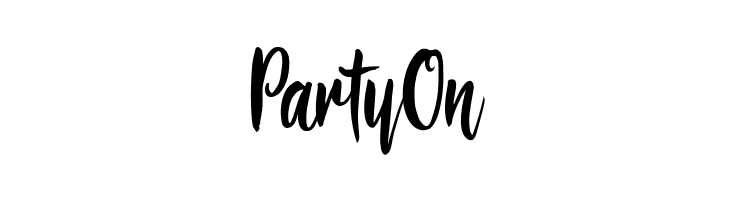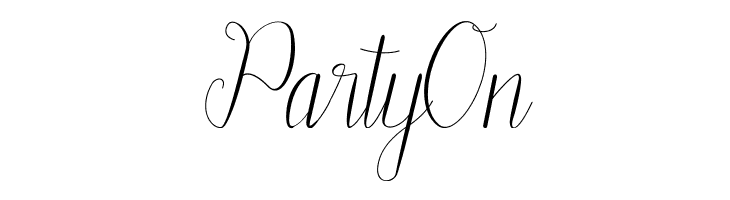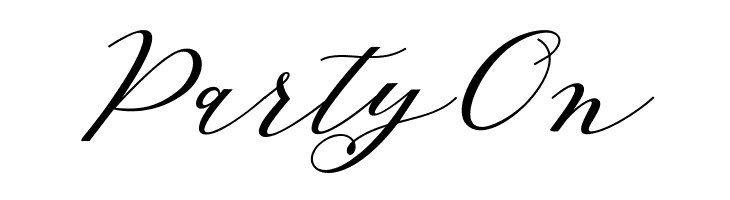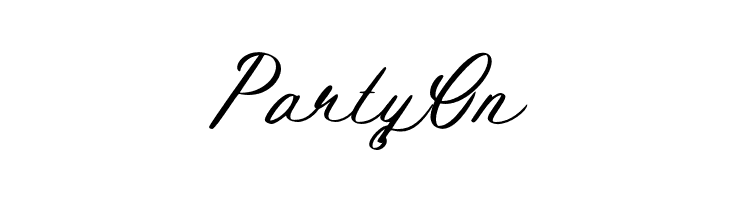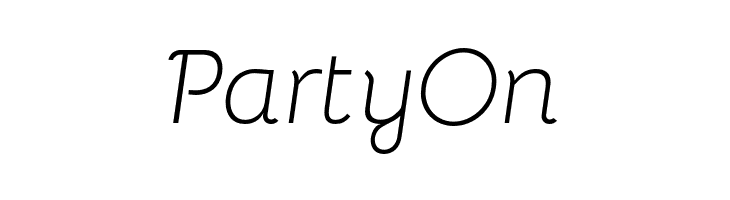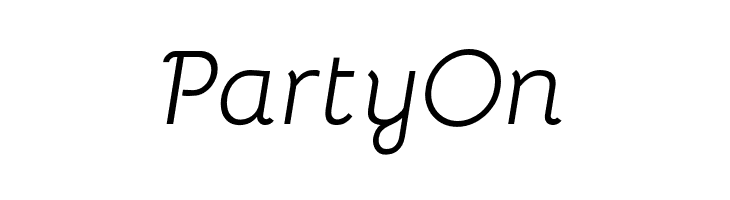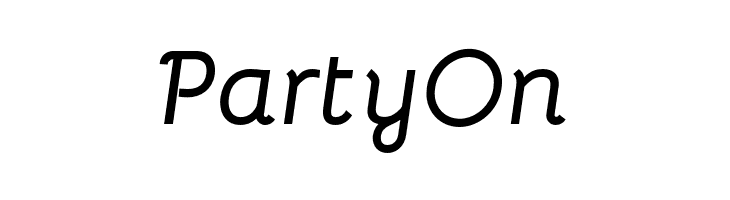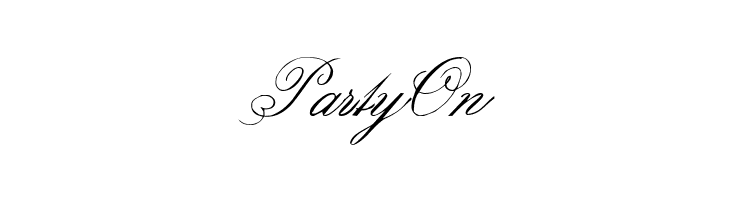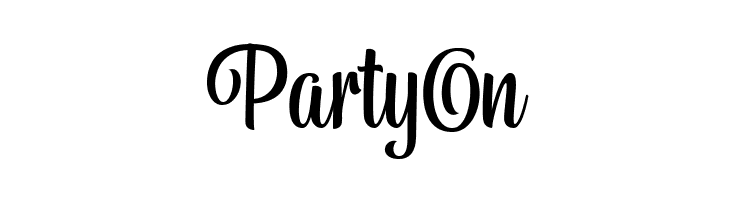
• Bellota Bold Italic
( Fonts by Pixilate )
A bold, italicized font with a playful and modern design.
• Bellota Italic
( Fonts by Pixilate )
A playful, elegant italic font with smooth curves and a friendly appearance.
• Bellota Light
( Fonts by Pixilate )
A playful, rounded font with a light and modern appearance.
• Bellota Light Italic
( Fonts by Pixilate )
A light, italic font with smooth, flowing lines and a modern, elegant style.
• BelovedScript
An elegant script font with flowing, ornate letterforms and intricate swashes.
• Belphebe
An elegant script font with intricate flourishes and flowing lines.
• BelymonScriptDEMO
( Letterhend Studio - Hendry Juanda - creativemarket.com/letterhend )
A lively and elegant script font with smooth, flowing curves.
• Belynti Demo Script
A graceful and artistic script font with flowing, cursive letters and intricate loops.
• Bemboza script
A bold, expressive brush script font with dynamic strokes and artistic flair.
• Bendhigola Script
An elegant and flowing script font with graceful curves and loops.